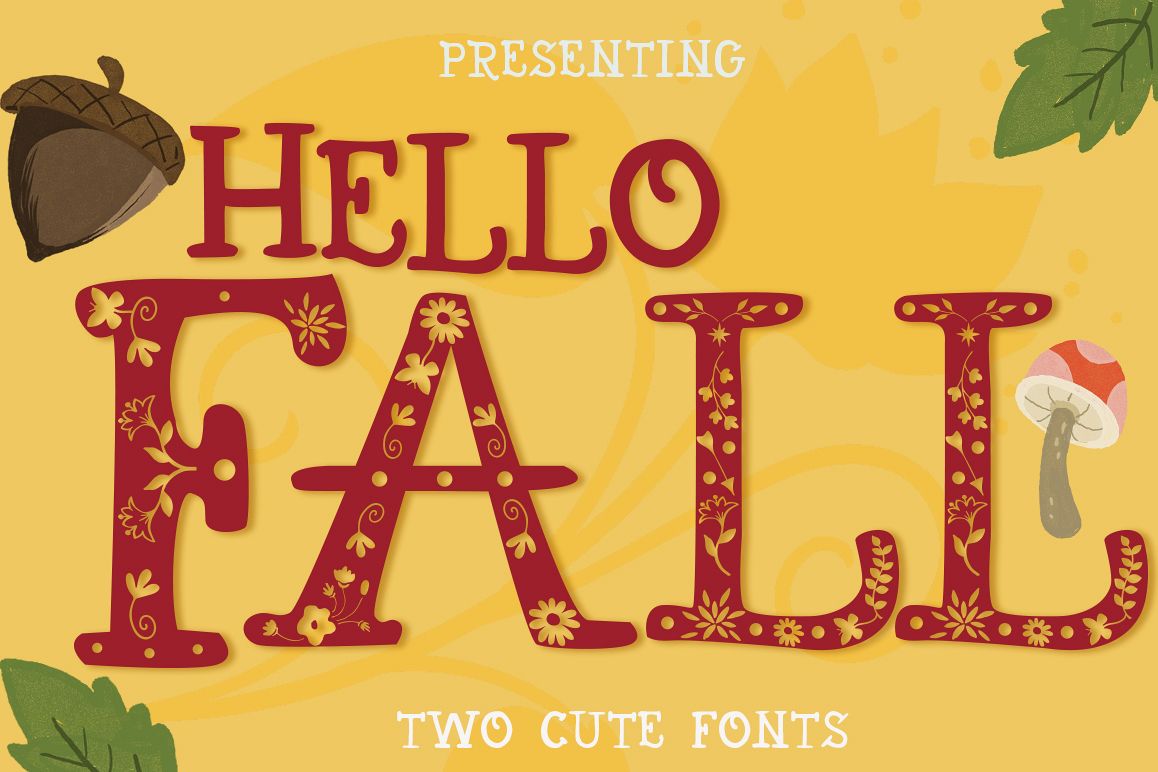
Hello Fall Font
Fall is coming and I wanted to create another cute and flowery font. Here you have two fonts: a flowery one and another clean version. Both have uppercase letters and jumping small caps and should work great for display - header lines, T-shirt designs, branding and so on.